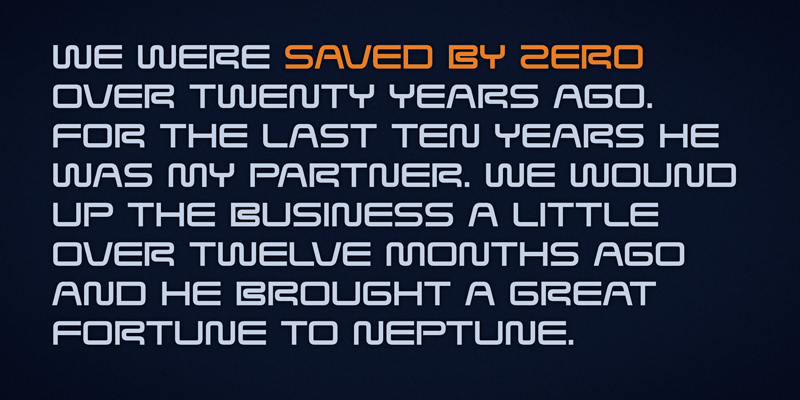
Saved by Zero is a wormish retro-tech spacefont. This font includes a license that allows free commercial use: sometimes referred to as a desktop license. This allows you to install the font on a computer and use it to create posters, web graphics, game graphics, t-shirts, videos, signs, logos and more. Read the license agreement for details. If you'd like to embed this font in an app, ebook, on the web or anything that's not covered by the desktop license agreement, visit the link below. You'll find distributors who offer different types of licenses or you can contact me for help. http://typodermicfonts.com/saved-by-zero/ |